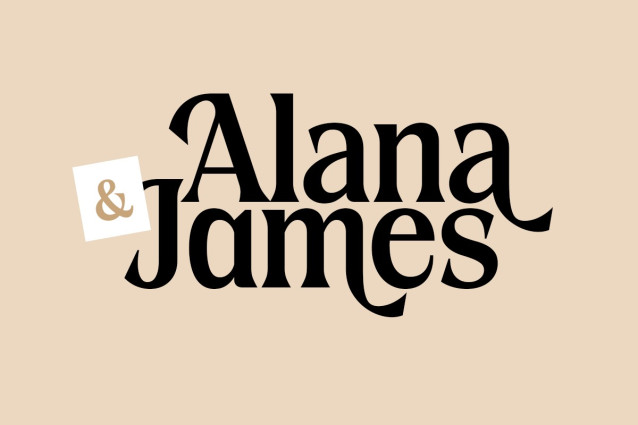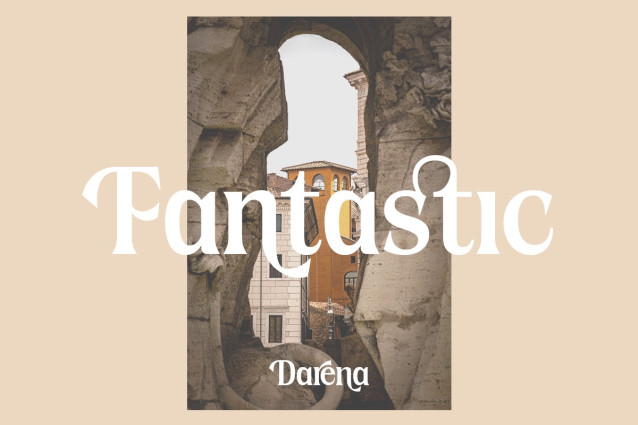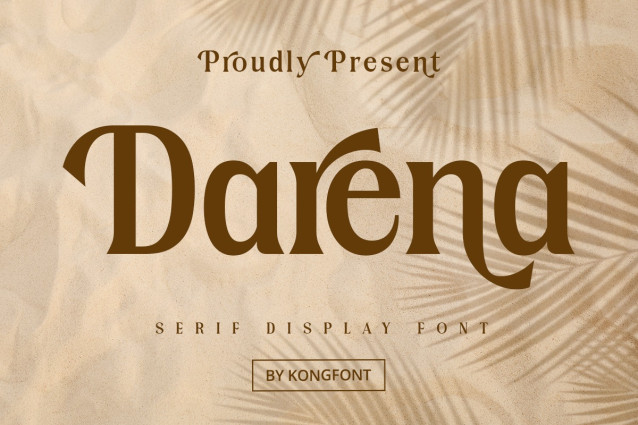
Darena Font
Darena Font is created to present a simple and elegant impression to anyone who sees us. This is in line with the character of the letters which are very clean without unnecessary knick-knacks in each letter. Jasmine Classy Serif Font stands tall and exudes a confident vibe. People who read various texts using this font do not need to bother to be able to read and understand it, in other words, this is a legible font. As the name implies, Jasmine Classy Serif Font is perfect for use in various formal events, such as weddings and multiple parties. This font is modern fonts and elegant fonts. It can be used for fashion branding, business cards, book covers, and magazine covers. This font can be printed in small or large sizes and still looks great up close or afar. Not only that, this type of font can be used on the web. It can be used as a film font, in the intro and outro of the film. This font is also suitable for use as a title font that has a beautiful theme. For person who are simple and don’t like the look of busy designs on their clothes, they will choose clothes with typography in them. Bold and clean, Jasmine Classy Serif Font can look great when used correctly. Based on the description of using Jasmine Classy Serif Font, this font can use as a digital and print font. Our Sans serif fonts collection is compatible for use as Figma fonts, Canva fonts, Freepik Fonts, and Adobe Fonts. They also work as Windows Fonts and Apple Fonts. For your social media needs, you can use and install fonts in our Sans Serif font collection to use as Instagram Fonts, Facebook Fonts, and Twitter Fonts.